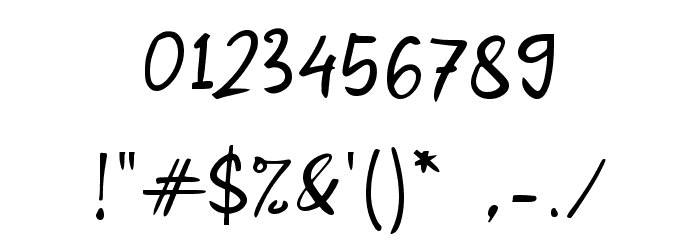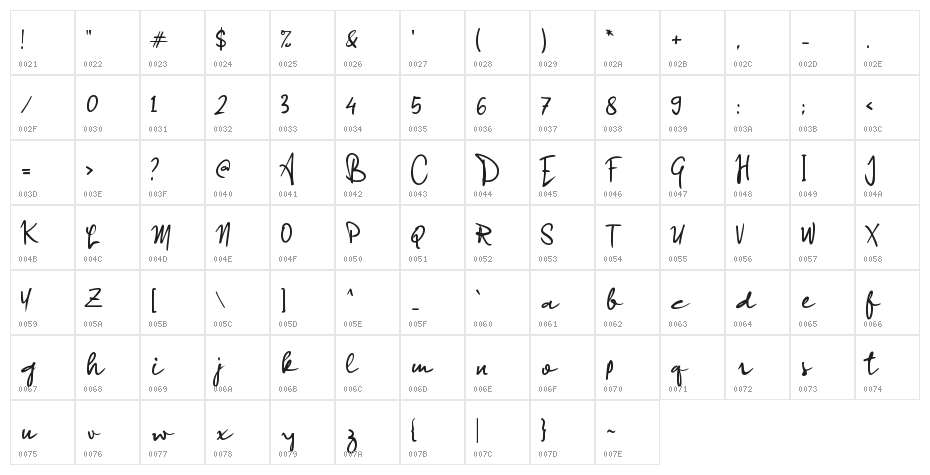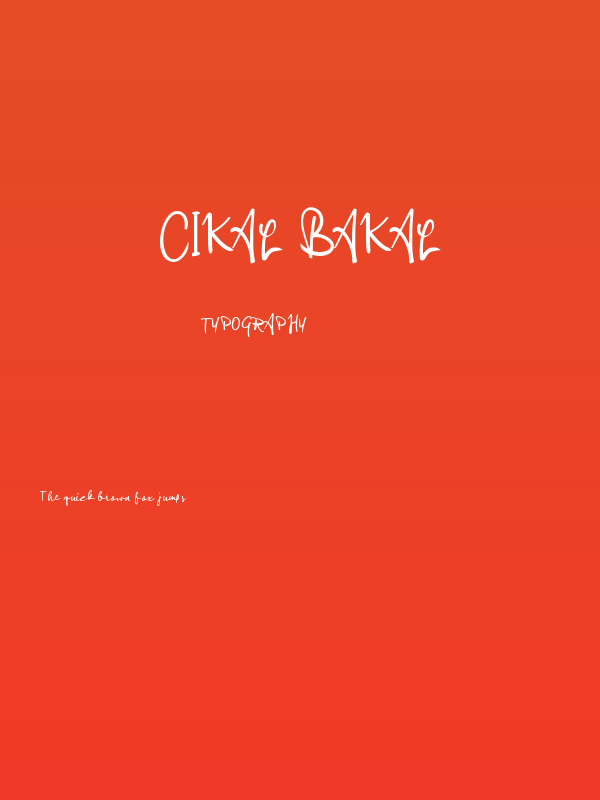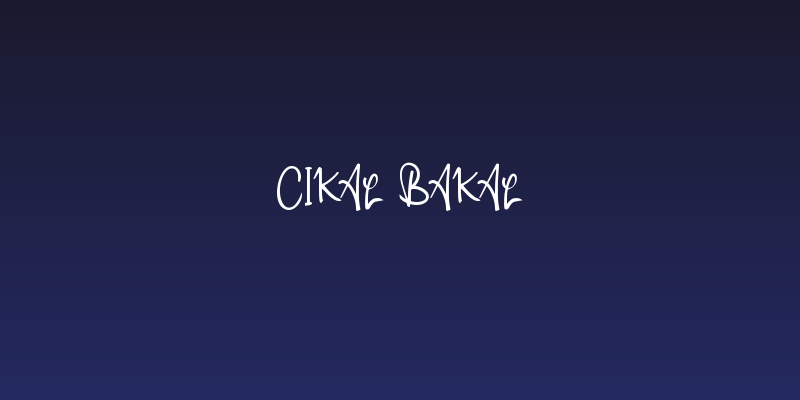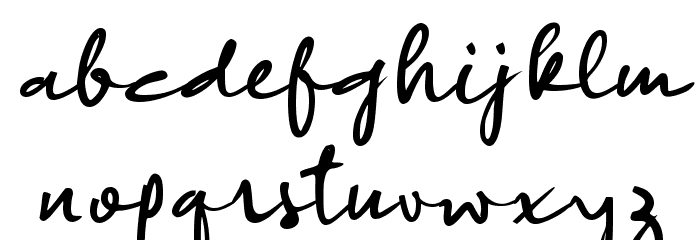
Cikal Bakal Font
Cikal Bakal Description
This font features a lively and dynamic handwritten style, characterized by its fluid and organic strokes. The uppercase letters exhibit a playful yet elegant flair, with varying stroke widths that add a sense of movement and personality. The lowercase letters maintain a consistent flow, creating a harmonious and cohesive look. Numbers and special characters are crafted with the same attention to detail, ensuring versatility across different uses. The overall appearance is both casual and sophisticated, making it suitable for a wide range of creative projects.
| Proposed Projects | Ideal for invitations, greeting cards, branding, and social media graphics. |